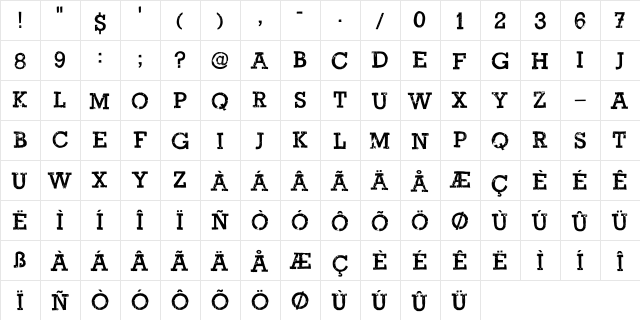
Return Policy DEMO Regular
Design Context for Return Policy DEMO Typeface
Return Policy DEMO is a composed and adaptable typeface that performs quietly and consistently across a wide range of design contexts.